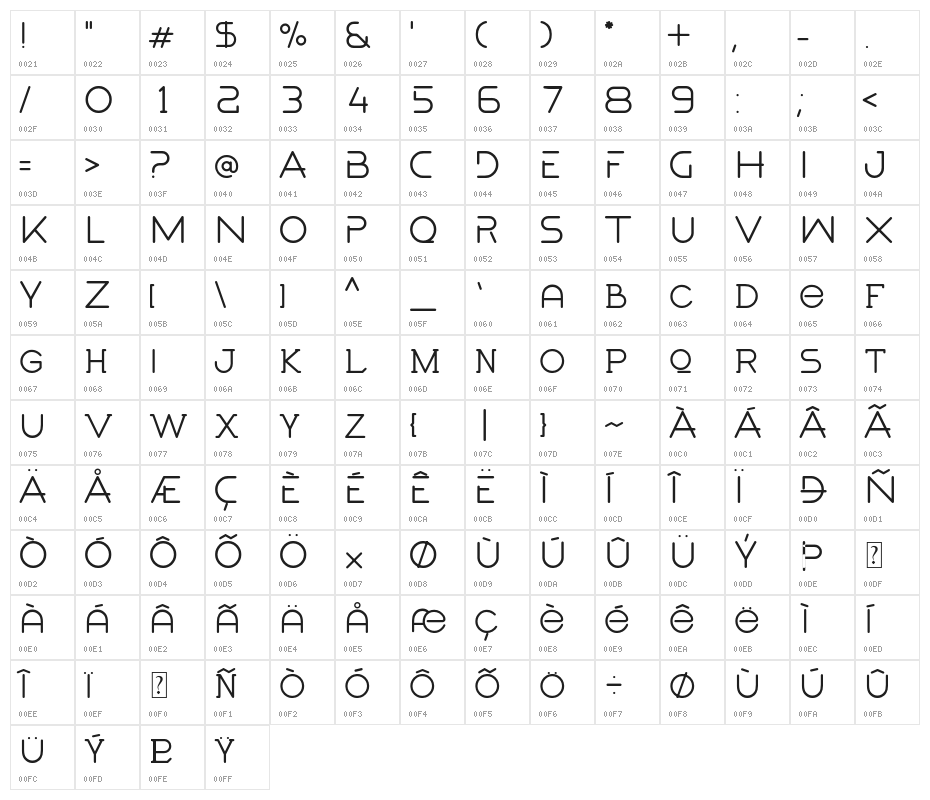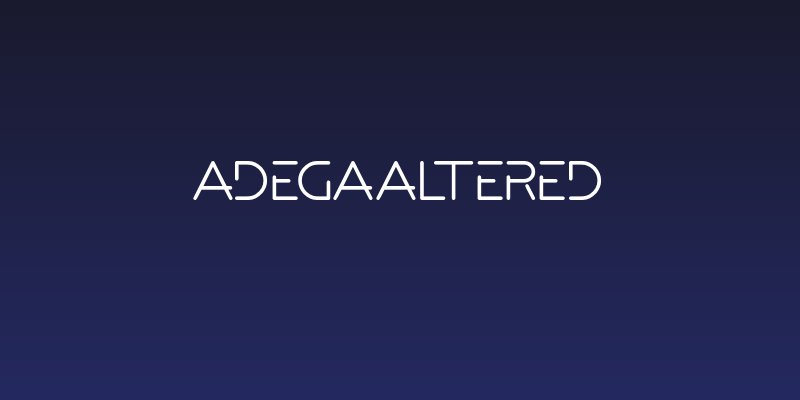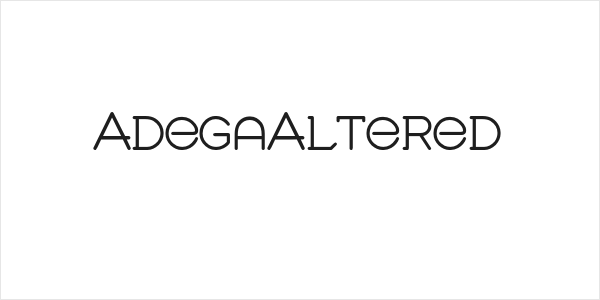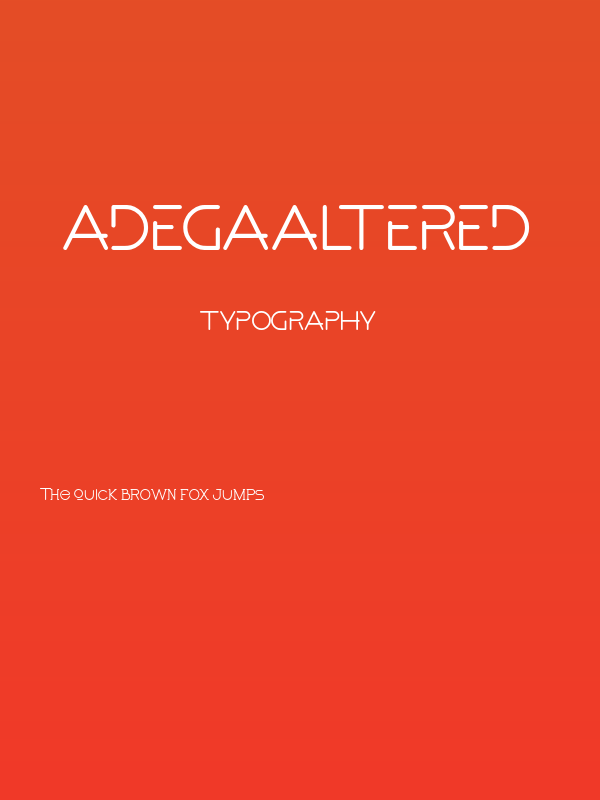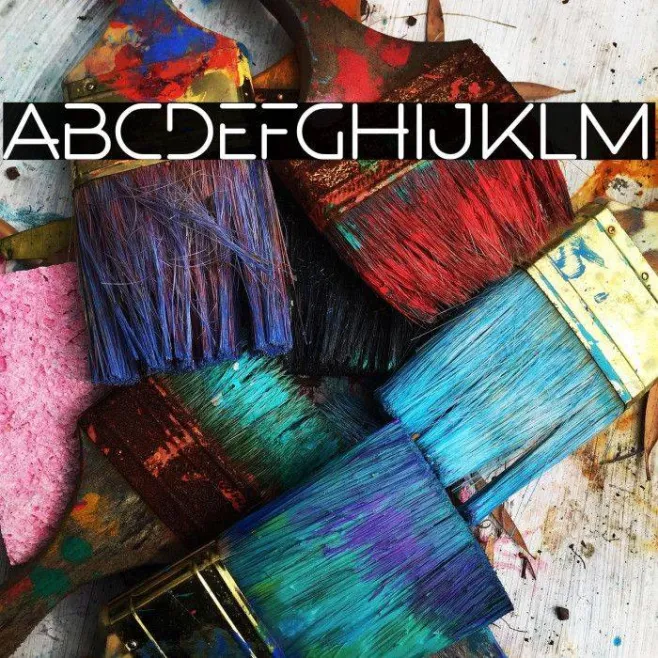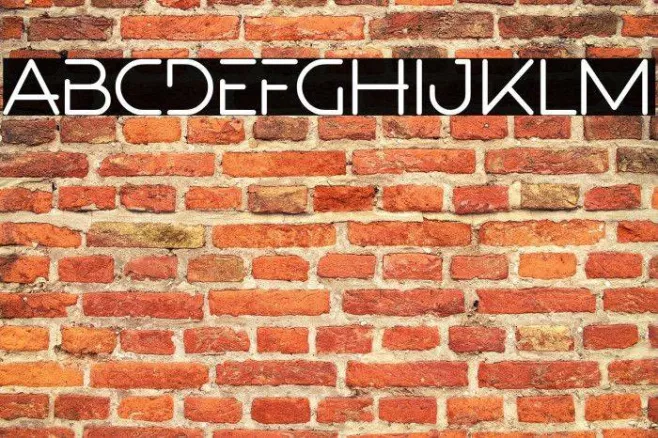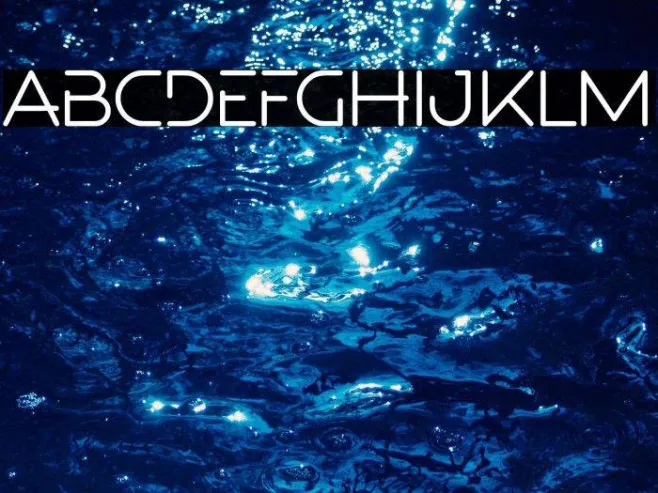
AdegaAltered Font
AdegaAltered Description
This font features a modern, geometric design with clean lines and a minimalist aesthetic. The uppercase letters are uniform in height, with a consistent stroke width that gives a balanced and harmonious appearance. The rounded edges and open counters contribute to a friendly and approachable feel, while the overall structure maintains a sense of precision and clarity. The numerals are equally well-crafted, aligning perfectly with the style of the alphabet. Special characters are thoughtfully integrated, ensuring versatility across various applications.
| Use Case | Headlines, Logos, Digital Interfaces |
| Proposed Projects | Ideal for branding, advertising, digital interfaces, and modern editorial design. |